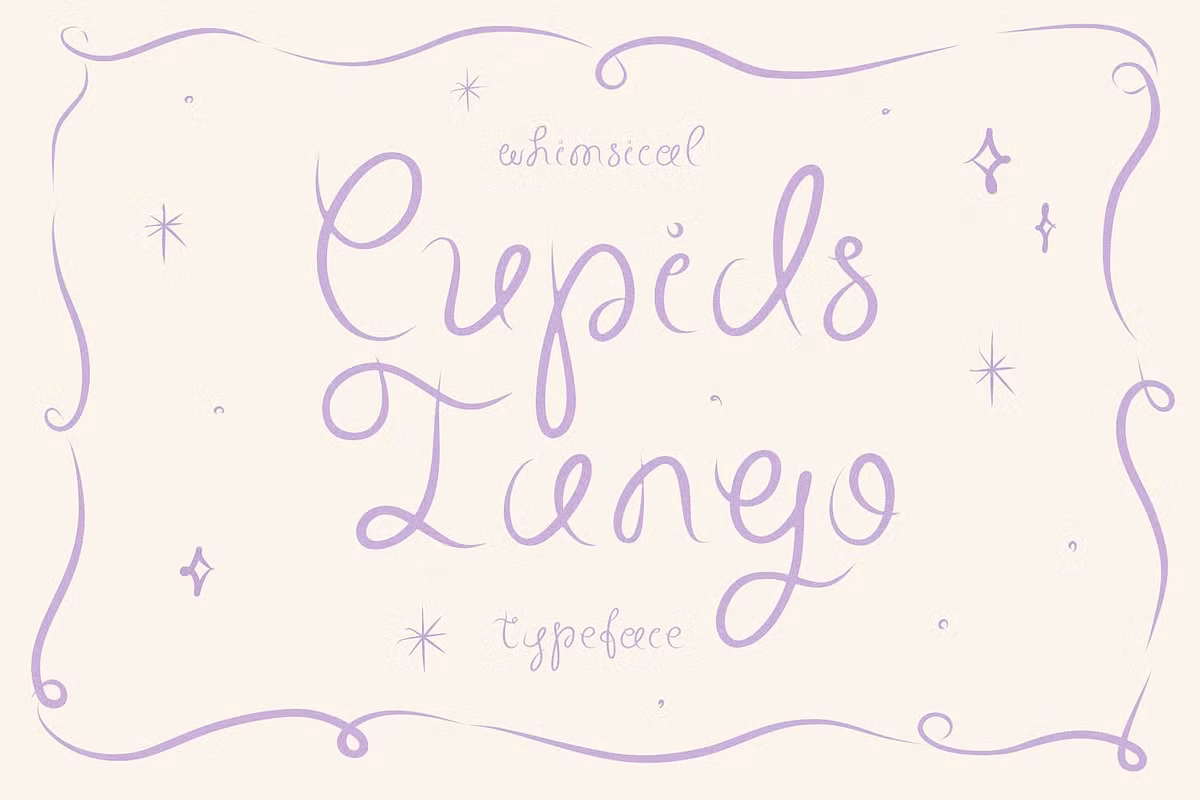
Whimsical Wedding Curly Script Font Free Download is a beautifully flowing, elegant script typeface that captures the charm and grace of wedding calligraphy. With its curly, whimsical strokes and delicate design, this font is perfect for creating romantic wedding invitations, bridal logos, elegant stationery, and any project that needs a touch of elegance and personality.
Whimsical Wedding Curly Script Font Free Download adds a sense of luxury and whimsy to your typography, making it ideal for personalized wedding designs, greeting cards, and celebratory event materials. Whether you're designing wedding invites, save-the-date cards, or anniversary gifts, this font brings a romantic, festive charm to your projects. Download it today and add a whimsical, curly elegance to your next creative venture!